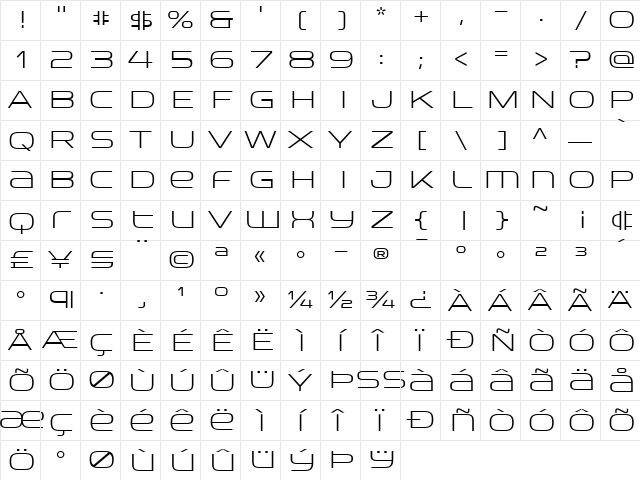
HouseMovementsTT-Runway Regular
| Foundry | House Industries |
| Designer | House Industries |
Design Context for HouseMovementsTT-Runway Typeface
HouseMovementsTT-Runway is a composed and adaptable typeface that performs quietly and consistently across a wide range of design contexts.